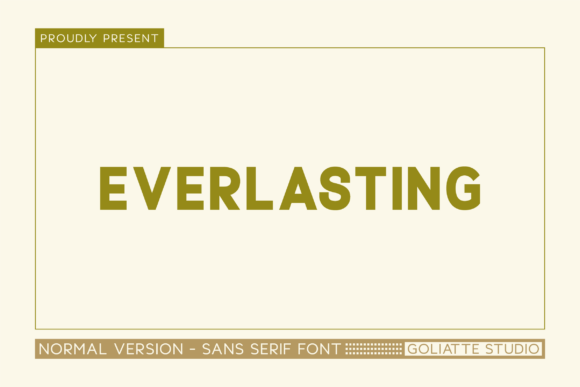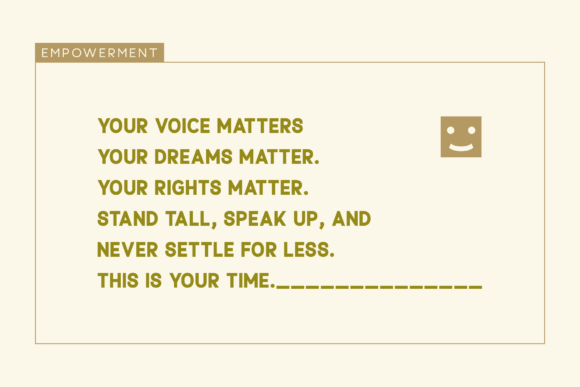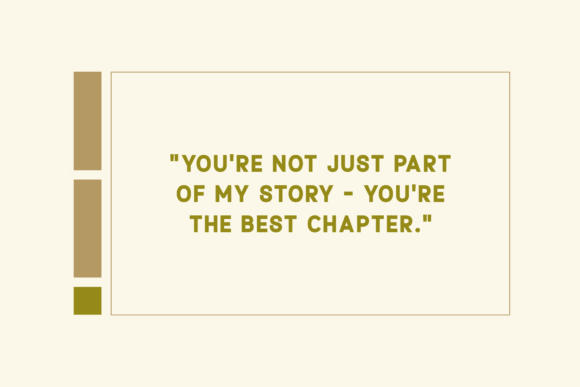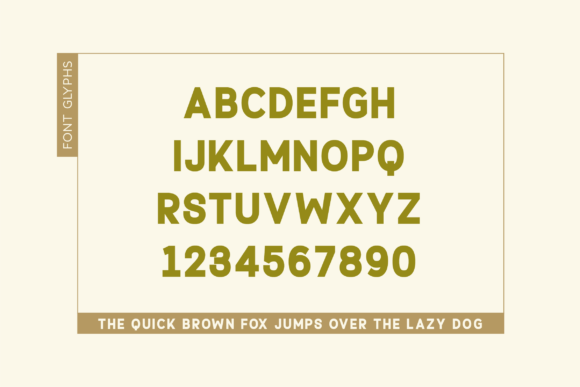
Everlasting Font: Bold Sans Serif for Modern Branding & Logo Design
About the Everlasting Font
Introducing the Everlasting Font, a beautifully crafted typeface designed to elevate your creative projects. Introducing Everlasting – A Modern Sans Serif Typeface
Everlasting is a bold, all-caps sans serif font designed for the modern designer. With its clean lines and minimalist aesthetic, this typeface exudes strength and authority. It is perfect for projects that require a sense of professionalism and impact. Whether you’re designing a logo, website, or print material, Everlasting makes a statement with its sharp, crisp edges.
The strong, geometric structure of Everlasting ensures versatility, from digital interfaces to high-end branding. The all-caps design emphasizes clarity and readability, making it ideal for headlines, posters, and anywhere you need your message to stand out.
Features:
All-caps design for maximum impact
Modern, minimalist style with a focus on readability
Bold, clean lines for a confident and professional look
Ideal for branding, logos, packaging, and digital design
Perfect for both large-scale headlines and smaller text blocks
Everlasting is perfect for brands, agencies, and designers looking to create a modern, authoritative identity. It’s especially suitable for tech companies, corporate branding, and luxury design projects where style and readability are paramount.
Stand out with Everlasting – a typeface built to make an impression.